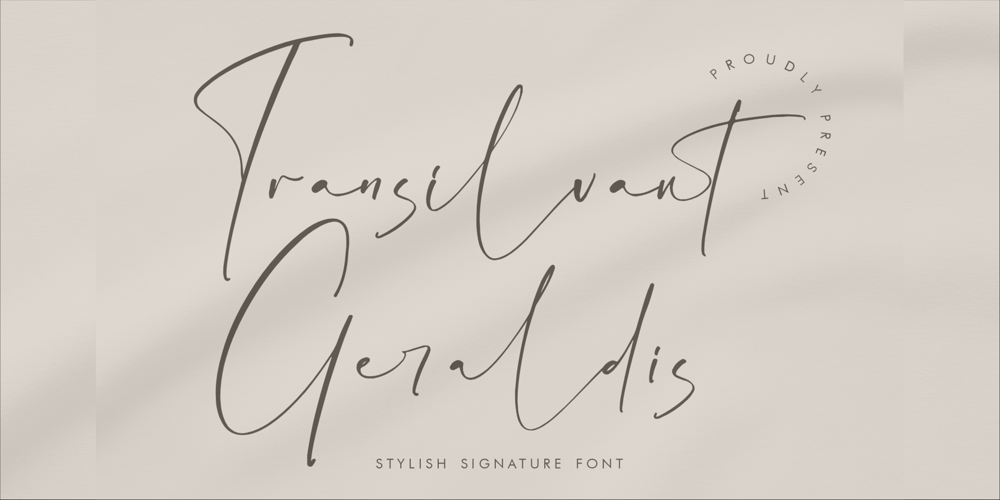
Transilvant Geraldis
Transilvant Geraldis font
Transilvant Geraldis Font Family was designed by Heru Utama Putra and published by Letterena Studios. Transilvant Geraldis contains 2 styles and family package options. A luxury script that has its own unique style & modern look.This typeface is perfect for an elegant & luxury logo, book or movie title design, fashion brand, magazine, clothes, lettering, quotes, and so much more.